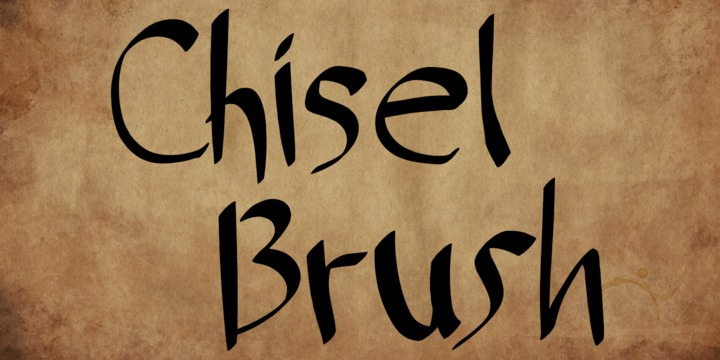
Chisel Brush Font
Chisel Brush Font is perfect for artistic brand identities, creative studio logos, handcrafted product packaging, artisan workshop signage, bohemian lifestyle campaigns, independent artist portfolios, craft brewery branding, vintage-inspired designs, and authentic handmade marketing materials.
What makes Chisel Brush Font exciting is its powerful combination of artistic expression with raw, unrefined energy that captures the authentic spirit of traditional craftsmanship and creative rebellion. The font features bold, textured letterforms with distinctive brush strokes that evoke the immediacy and passion of hand-carved lettering and artistic creation. Its rugged character and authentic imperfections make it perfect for brands that want to communicate artistic integrity, creative authenticity, and the bold confidence of independent makers who refuse to compromise their vision for mass appeal.
Chisel Brush Font family includes various artistic weights such as Regular, Bold, and textured variations, often featuring hand-carved alternates and craft-inspired decorative elements. The family may include artistic symbols, brush-style ornaments, and authentic ligatures that enhance the font's handcrafted aesthetic, providing designers with comprehensive options for creating distinctive brand identities that celebrate artistic expression and traditional craftsmanship techniques.
This dynamic typeface has gained popularity among creative professionals and independent artists seeking authentic handcrafted typography solutions. Chisel Brush Font Free Download provides an excellent opportunity to experience this artistic font before investment. The font's character set includes creative symbols and artisan-inspired glyphs that work perfectly for art and craft industry applications. Whether you're designing for independent artists, craft distilleries, or creative collectives, Chisel Brush Font delivers the artistic authenticity your project demands. Its versatile nature makes it suitable for various creative applications including art galleries, maker spaces, creative workshops, and rebellious lifestyle brands, ensuring your typography choices communicate artistic passion and creative independence while creating memorable brand experiences that celebrate the raw beauty of handcrafted work and the uncompromising spirit of true artistic expression through its distinctively bold and authentically artistic visual character.